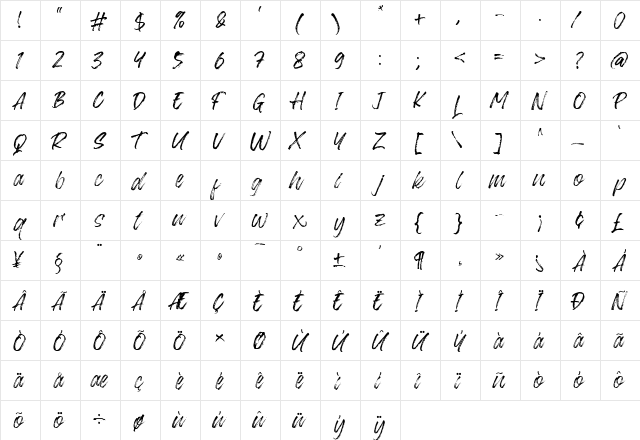
Blackway Brush Regular
Design Context for Blackway Brush Typeface
Blackway Brush flows with the natural rhythm of handwritten lettering, making it ideal for designs that call for warmth and personal expression.
Font Pairing: Combine Blackway Brush with a simple geometric sans for maximum contrast — the tension between flowing curves and clean structure is a classic typographic pairing.
Pro Tip: Use Blackway Brush for short runs of text — names, titles, or taglines. Extended body copy in script faces tires the eye quickly.